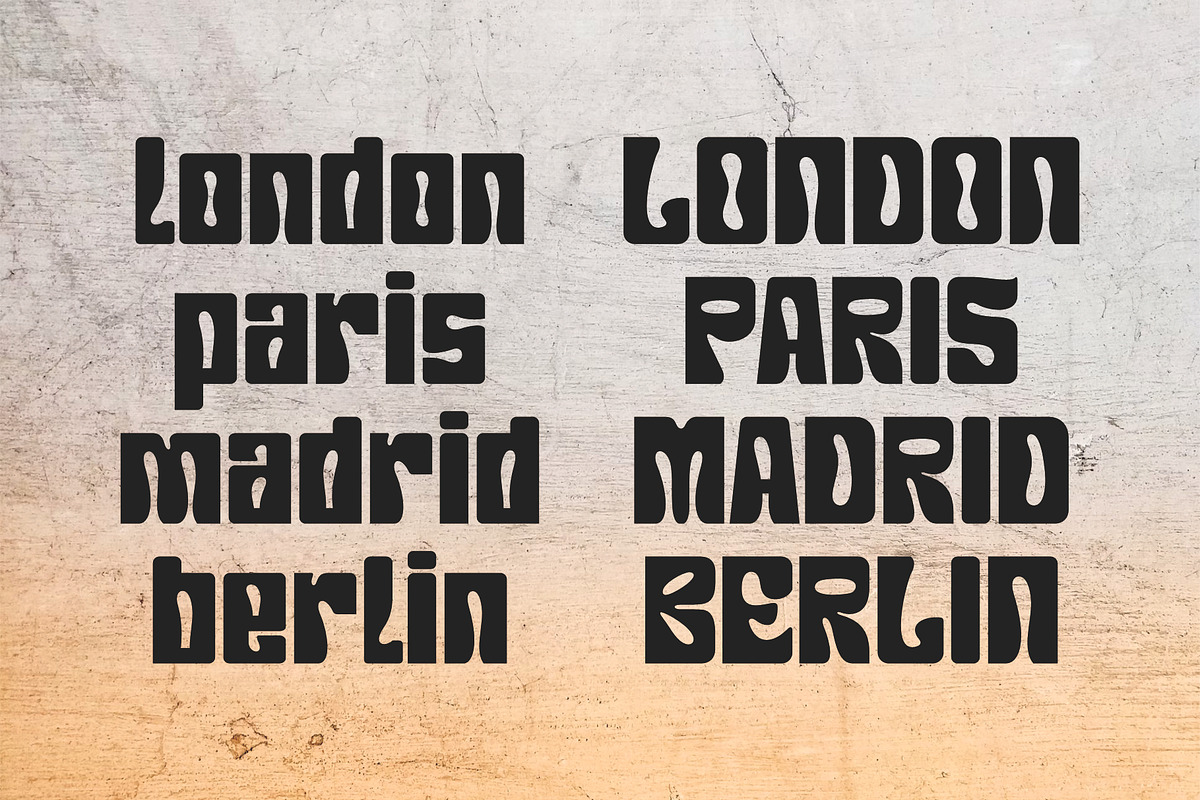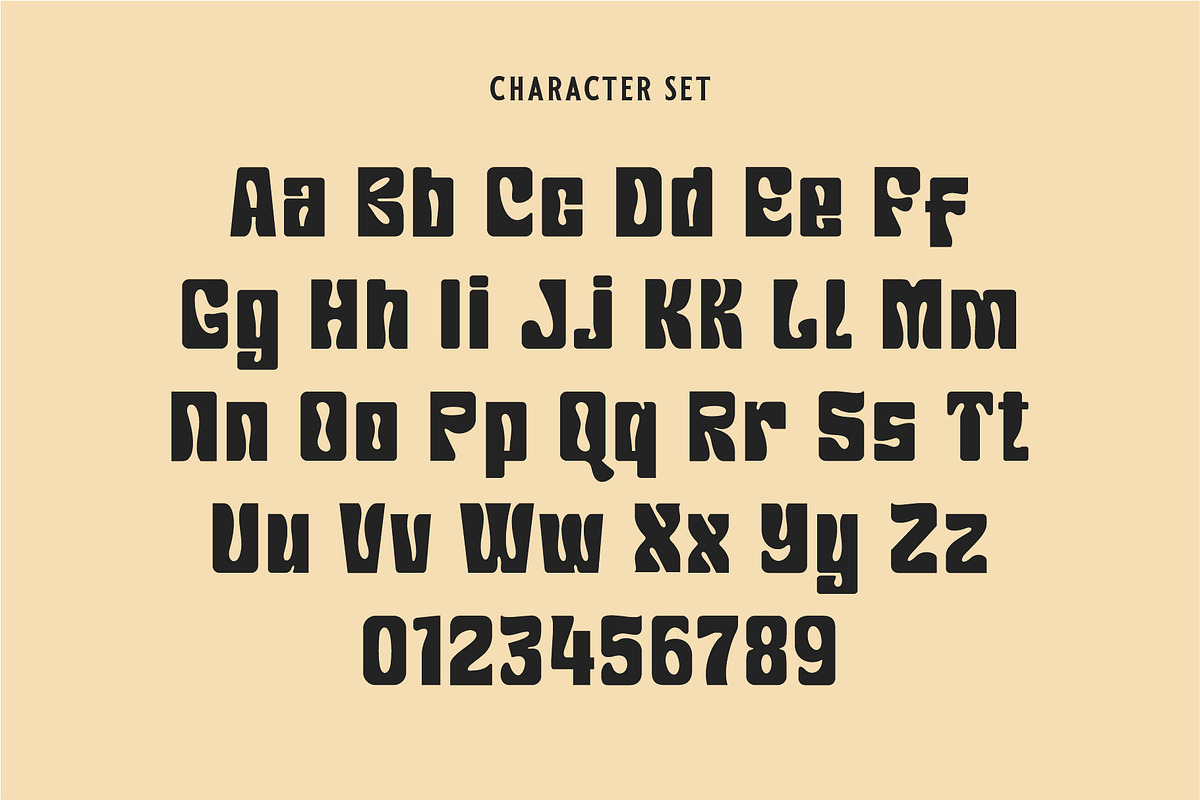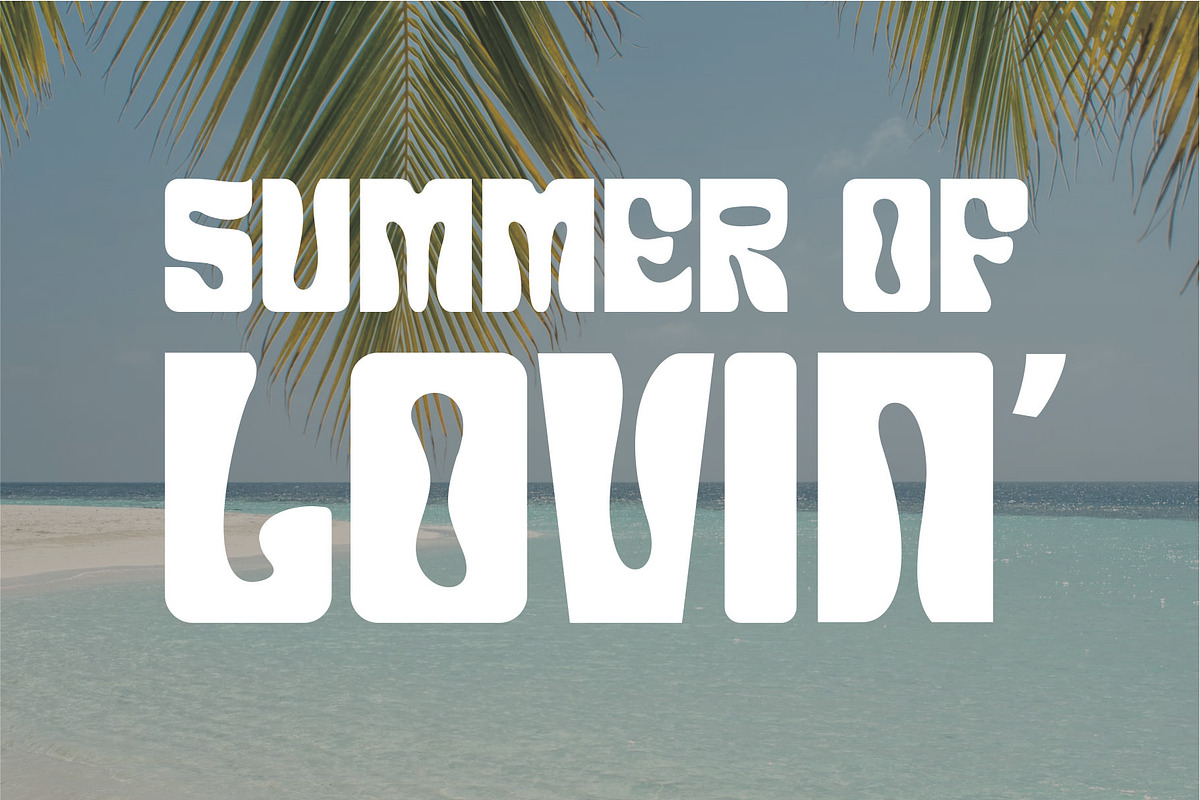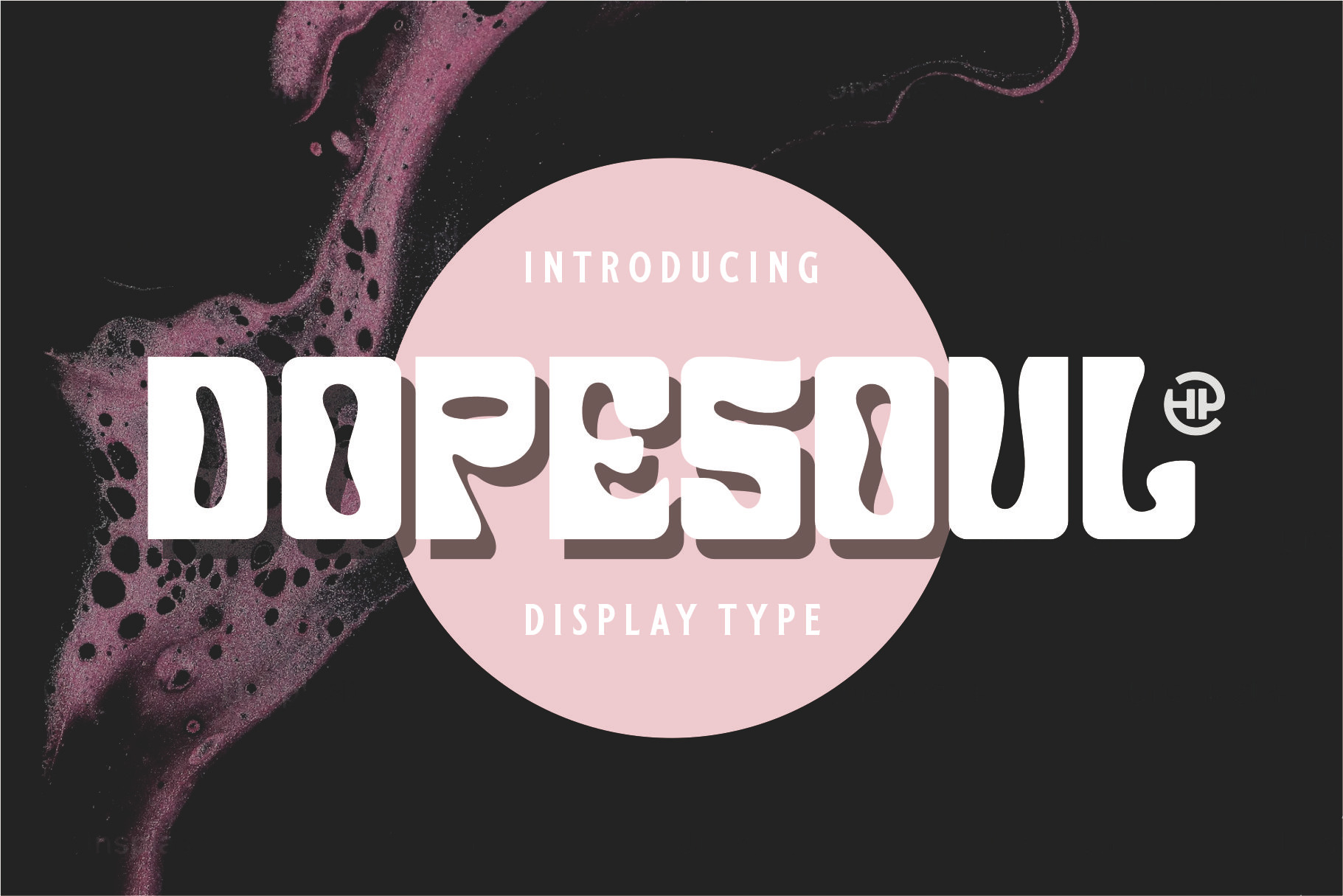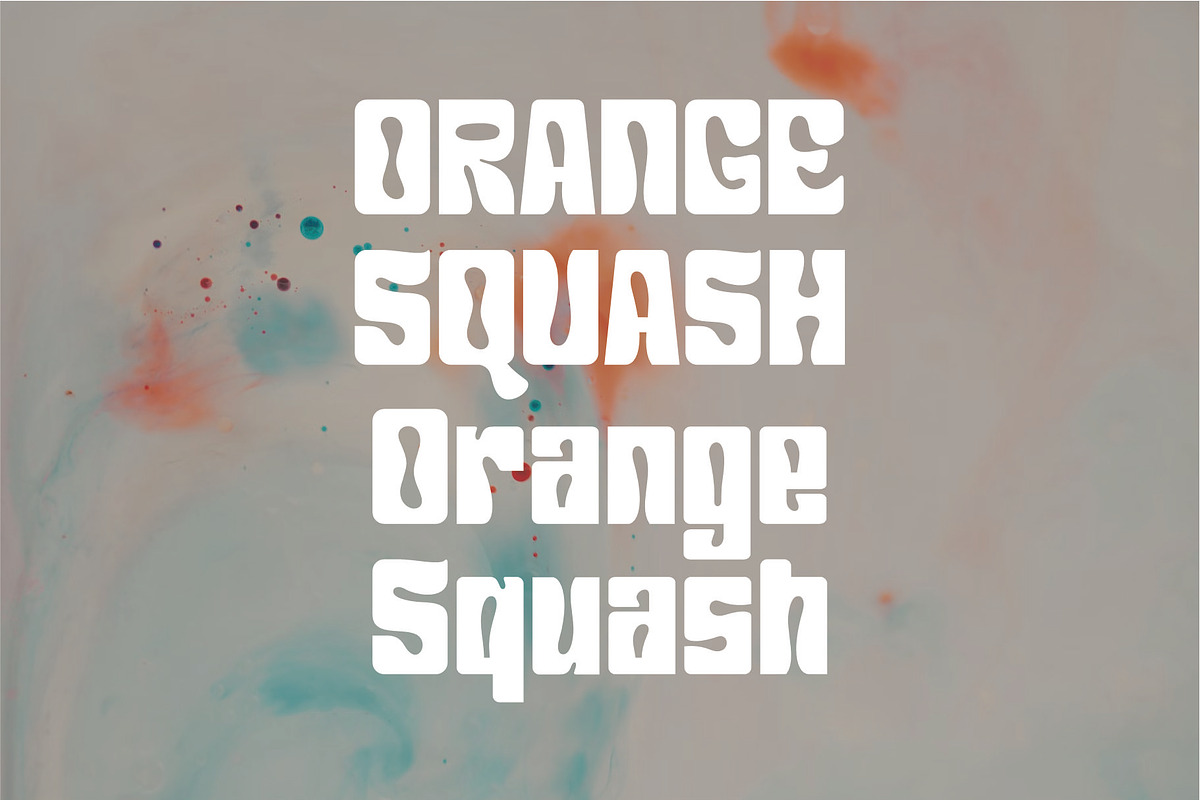
DOPESOUL - Display Typeface
Dopesoul - Display Font. Dopesoul is a display style font. Dopesoul is inspired by vintage albums and posters from 1970s music bands. The classic typeface, fun and groovy impression is very visible. Dopesoul is also great for any kind of display purpose from album, cover,poster, label, tshirt, apparel, signage, quote, logo, and many more. Dopesoul is also support multi language.